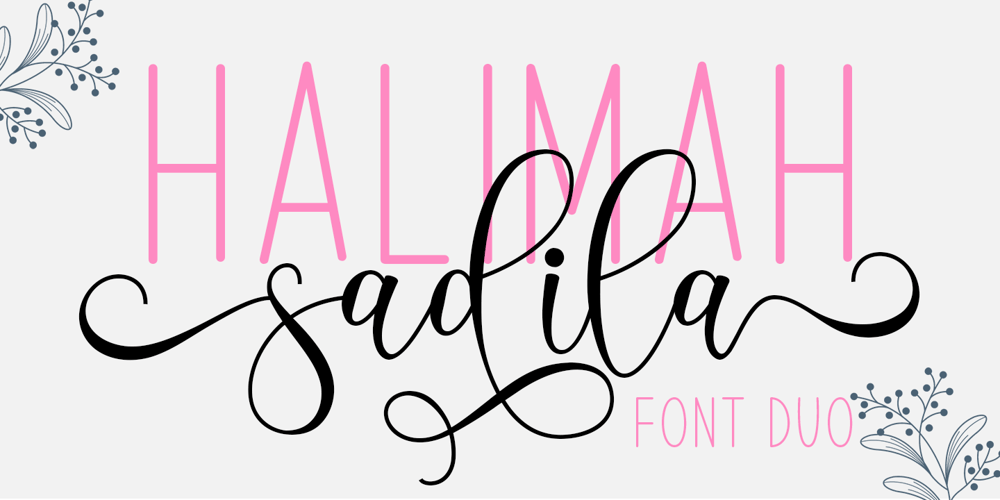
Halimah Sadila Font Family was designed by Mohamad Candirah and published by MC Creative. Halimah Sadila contains 2 styles and family package options. Halimah Sadila is a font duo combining modern calligraphy & fresh new Monoline with many alternative styles making this font look natural, elegant, and perfect for any extraordinary project.Halimah Sadila is perfect for various projects such as branding, invitations, stationery, wedding designs, social media posts, advertisements, product packaging, product design, labels, photography, watermarks, logos or special events or whatever.________________________________________What’s Included:• Standard glyphs• Binder• Works on PC & Mac• Simple installation• Can be accessed in Adobe Illustrator, Adobe Photoshop, Adobe InDesign, and even works in Microsoft Word.• PUA Encoded Characters – Fully accessible without additional design software.• Fonts including multilingual support for; ä ö ü Ä Ö Ü ß ¿¡________________________________________Thank you for your purchase!Hope you enjoy with our fonts!